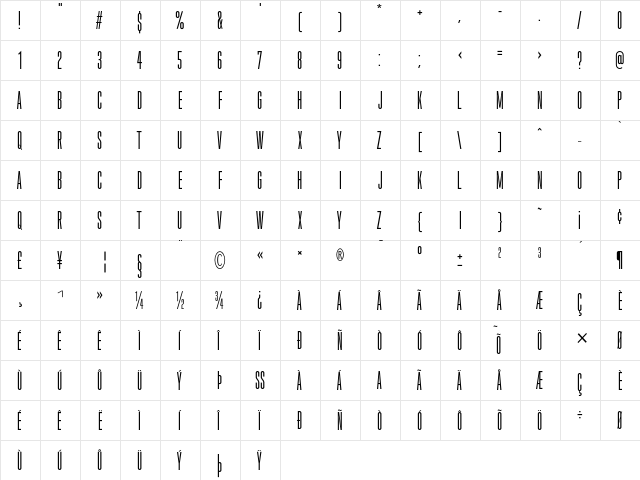
Ohrada Regular
| Foundry | Frantisek Storm |
Design Context for Ohrada Typeface
Ohrada takes a measured approach to typography — its balanced proportions and neutral character make it a reliable workhorse for both digital and print work.